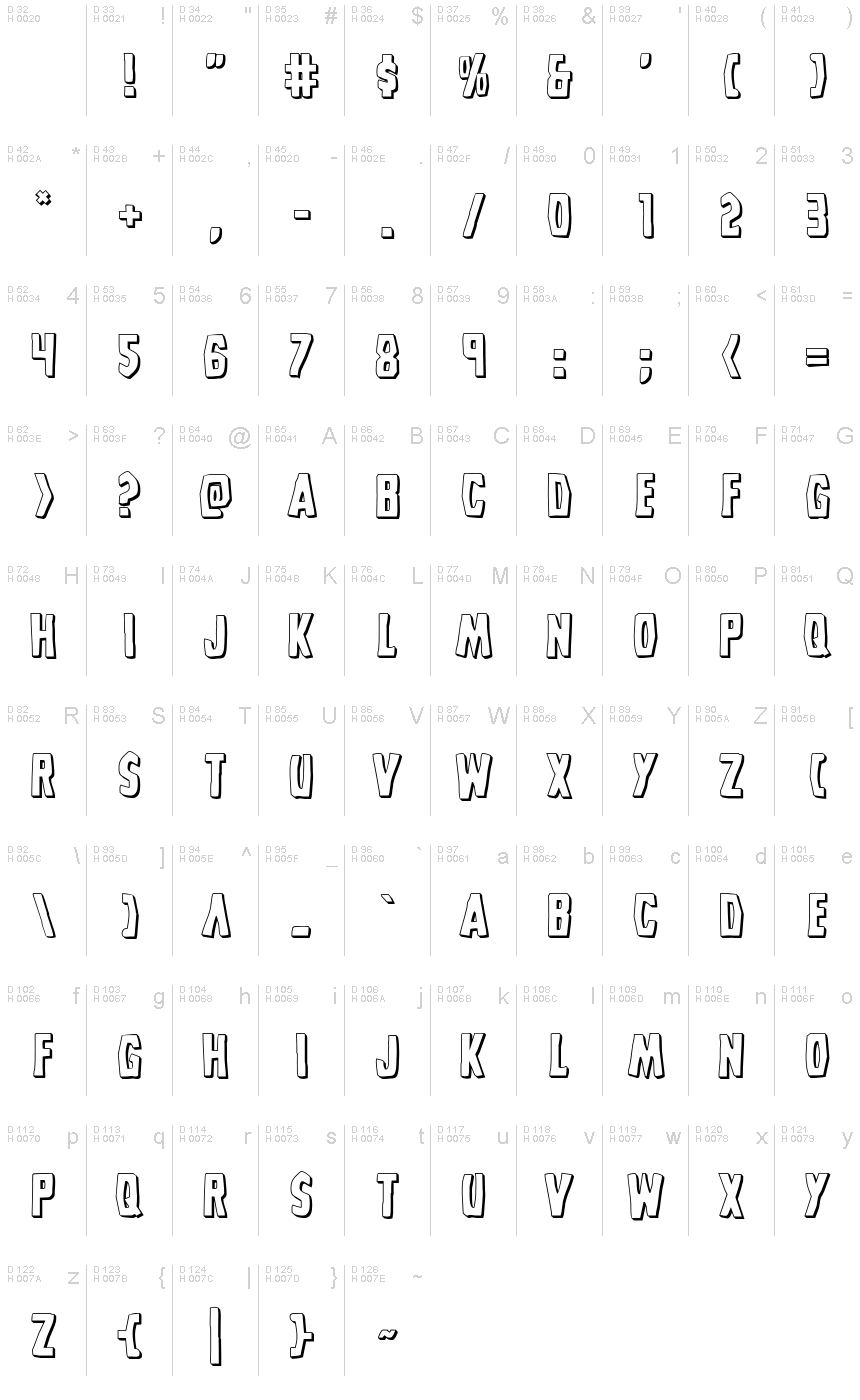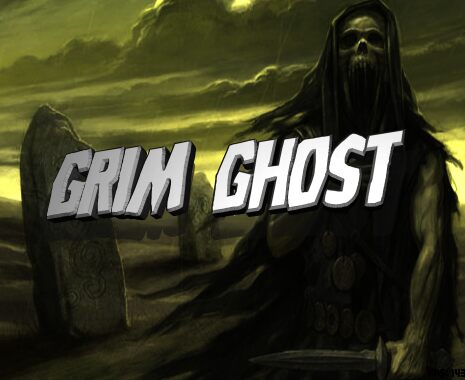
Grim Ghost 3D
Grim Ghost 3D font is a donationware 3d scary typeface designed by Iconian Fonts. Grim Ghost is an old-school, pulp horror font. Comes with a full character set and the Euro. This bold, outlined, block-style font features irregular shapes with high contrast that give it a playful mood and cartoonish appearance. It captures dynamic energy and adds impressive depth and personality.
Perfect for Halloween-themed posters, book covers on horror tales, spooky party invitations, themed event signage; also ideal for graffiti projects due to its urban leitmotif; ideally amplify those eerie VR experiences – or anywhere you want chilling vibe without compromising on creative flair!